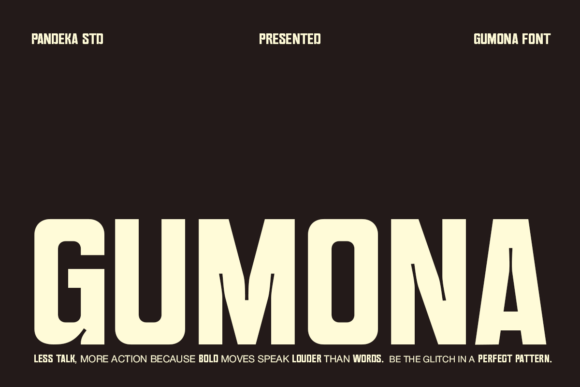
Gumona Font: The Ultimate Display Typeface for Bold Statements
In the world of typography, fonts play a crucial role in conveying messages, expressing emotions, and creating visual impact. Among the numerous fonts available, Gumona Font stands out as a bold, condensed display typeface designed to make a strong impression. With its thick strokes, square corners, and tight letter spacing, Gumona evokes the raw energy of urban culture, streetwear, and bold editorial layouts.
Design and Characteristics
Gumona Font boasts a sharp structure and powerful silhouette, making it ideal for headlines, posters, sports branding, album covers, and magazine spreads. Its condensed design allows for maximum visual impact in tight spaces, while its bold strokes and square corners give it an edgy, urban feel. The font’s tight letter spacing adds to its compact and powerful appearance, making it perfect for creating striking titles and headings.
Urban Culture and Streetwear Inspiration
Gumona Font draws inspiration from urban culture and streetwear, reflecting the bold and daring spirit of city life. Its design is reminiscent of graffiti, street art, and urban fashion, making it a perfect fit for brands and designers looking to convey a sense of edginess and coolness. Whether it’s used for a streetwear brand, a music album cover, or a bold editorial layout, Gumona Font is sure to make a statement.
Key Features and Benefits
Gumona Font comes with a range of features that make it an excellent choice for designers and brands. Some of its key benefits include:
- Uppercase and Lowercase Letters: Gumona Font includes both uppercase and lowercase letters, allowing for flexible use in various design applications.
- Ligatures: The font features ligatures, which provide a more natural and fluid appearance, especially in titles and headings.
- Multilingual Support: Gumona Font supports multiple languages, making it a great choice for global brands and designers working on international projects.
- High-Contrast Environments: The font thrives in high-contrast environments, making it perfect for use in gritty street ads, sleek modern campaigns, and bold editorial layouts.
Use Cases and Applications
Gumona Font is versatile and can be used in various design applications, including:
- Headlines and Titles: The font’s bold and condensed design makes it perfect for headlines, titles, and headings.
- Posters and Flyers: Gumona Font is ideal for posters, flyers, and other print materials that require a bold and attention-grabbing design.
- Sports Branding: The font’s edgy and urban feel makes it a great fit for sports branding, especially for teams and leagues looking to convey a sense of strength and energy.
- Album Covers and Music Branding: Gumona Font is perfect for album covers, music posters, and other music-related branding materials.
- Magazine Spreads and Editorial Layouts: The font’s bold and condensed design makes it ideal for magazine spreads, editorial layouts, and other publications that require a striking visual impact.
Tips for Using Gumona Font
To get the most out of Gumona Font, here are some tips to keep in mind:
- Use it boldly: Gumona Font is designed to make a statement, so don’t be afraid to use it boldly and prominently in your designs.
- Experiment with colors: The font’s bold and condensed design makes it perfect for use with bright, bold colors.
- Pair it with contrasting fonts: Gumona Font works well when paired with contrasting fonts, such as elegant serif fonts or clean sans-serif fonts.
- Pay attention to spacing: Make sure to adjust the letter spacing and line height to ensure optimal readability and visual impact.
Gumona Font is a bold, condensed display typeface designed to make a strong impression. With its thick strokes, square corners, and tight letter spacing, it evokes the raw energy of urban culture, streetwear, and bold editorial layouts. Its sharp structure and powerful silhouette make it ideal for headlines, posters, sports branding, album covers, and magazine spreads. Whether you’re a designer, brand, or artist, Gumona Font is a great choice for anyone looking to make a bold statement.